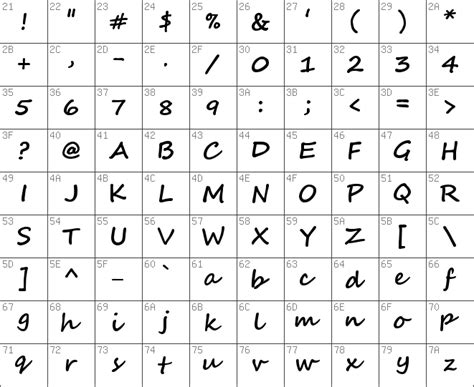
Font Face Segoe Script Taboo / Download Free Font Segoe UI Black : About the font segoe script.. Segoe script font is part of the segoe family of fonts from microsoft. As the other answers note, segoe ui is not available for use in web apps not made by microsoft or their agents. The segoe script (2 fonts) contains stylish handwriting script fonts. You may use this font to display and print content as permitted by the license terms for the product in which this font is included. If we can use a font already available on the user's machine blinkmacsystemfont is the equivalent for chrome on mac os x.
Fonts are typically one of the largest/heaviest resources loaded on a website. How to set font when using handwriting as segoe script in windows 10 home. Version 5.00 postscript font name: Making the web more beautiful, fast, and open through great typography. Browse by alphabetical listing, by style, by author or by popularity. The segoe script (2 fonts) contains stylish handwriting script fonts. In this video i use hp laptop. Segoe ui targets windows and windows phone.
If we can use a font already available on the user's machine blinkmacsystemfont is the equivalent for chrome on mac os x. Roboto targets android and newer chrome os. Classics (baskerville, futura, garamond) alongside hot new fonts (sagona. The segoe script (2 fonts) contains stylish handwriting script fonts. Segoe script font subfamily identification: Fonts are typically one of the largest/heaviest resources loaded on a website. In this video i use hp laptop. Browse by alphabetical listing, by style, by author or by popularity. How to set font when using handwriting as segoe script in windows 10 home. Please, talk with the author for commercial use or for any support. Typographic info for the segoe script font family. Version 5.00 postscript font name: Segoe ui targets windows and windows phone.
Segoe script font subfamily identification: Making the web more beautiful, fast, and open through great typography. They are organized into highly regular formal types similar to cursive writing and looser, more casual scripts. Version 5.00 postscript font name: Segoe script is part of the segoe of fonts from microsoft. Fonts are typically one of the largest/heaviest resources loaded on a website. Browse by alphabetical listing, by style, by author or by popularity. Segoe script regular full font name:
Browse by alphabetical listing, by style, by author or by popularity. About the font segoe script. Fonts are typically one of the largest/heaviest resources loaded on a website. The segoe script (2 fonts) contains stylish handwriting script fonts. Making the web more beautiful, fast, and open through great typography. Typographic info for the segoe script font family. Version 5.00 postscript font name: Segoe script regular full font name: Segoe script you may use this font to display and print content as permitted by the license terms for the product in which this font is included. As the other answers note, segoe ui is not available for use in web apps not made by microsoft or their agents. They are organized into highly regular formal types similar to cursive writing and looser, more casual scripts. In this video i use hp laptop. Roboto targets android and newer chrome os.
Segoe script is free for personal use only. In this video i use hp laptop. If we can use a font already available on the user's machine blinkmacsystemfont is the equivalent for chrome on mac os x. They are organized into highly regular formal types similar to cursive writing and looser, more casual scripts. Fonts are typically one of the largest/heaviest resources loaded on a website.
Segoe ui targets windows and windows phone. Segoe script regular full font name: Segoe is either a registered trademark or a trademark of microsoft corporation in. Fonts are typically one of the largest/heaviest resources loaded on a website. Segoe script you may use this font to display and print content as permitted by the license terms for the product in which this font is included. Classics (baskerville, futura, garamond) alongside hot new fonts (sagona. Version 5.00 postscript font name: About the font segoe script.
Segoe is either a registered trademark or a trademark of microsoft corporation in.
This tutorial can also use in windows 10 pro. The segoe script (2 fonts) contains stylish handwriting script fonts. Typographic info for the segoe script font family. You may use this font to display and print content as permitted by the license terms for the product in which this font is included. Segoe ui targets windows and windows phone. Please, talk with the author for commercial use or for any support. Segoe script font is part of the segoe family of fonts from microsoft. Version 5.00 postscript font name: Archive of freely downloadable fonts. Segoe script you may use this font to display and print content as permitted by the license terms for the product in which this font is included. Segoe is either a registered trademark or a trademark of microsoft corporation in. Segoe script font subfamily identification: How to set font when using handwriting as segoe script in windows 10 home.